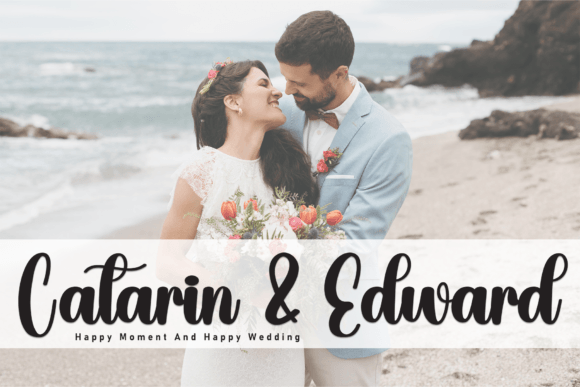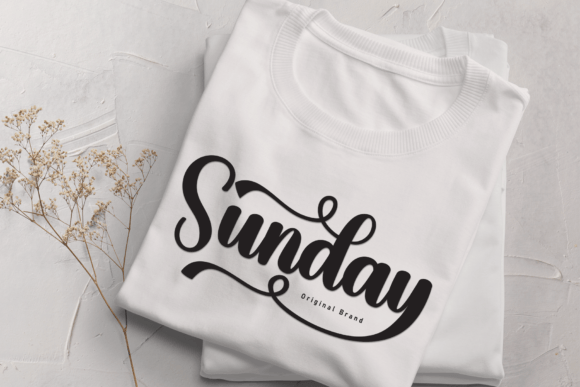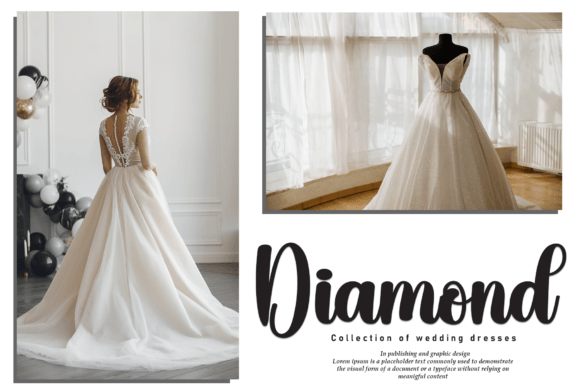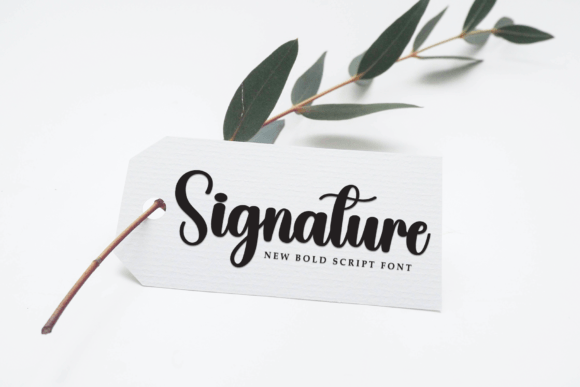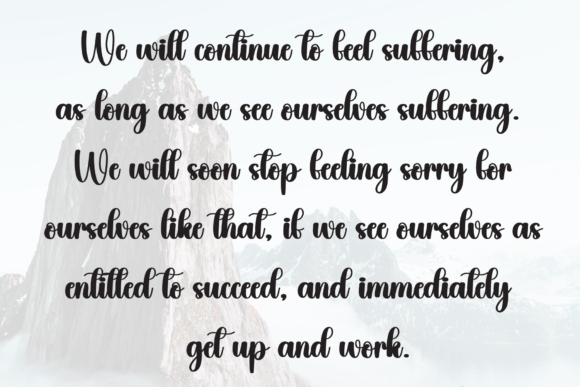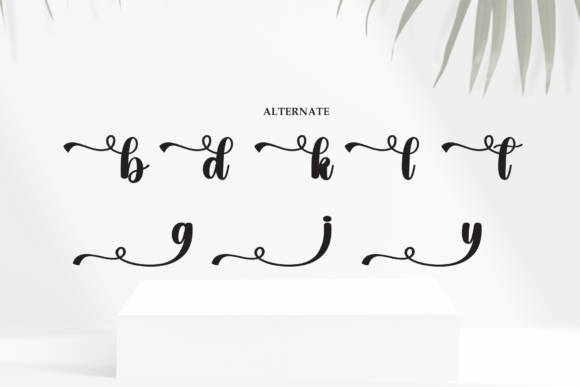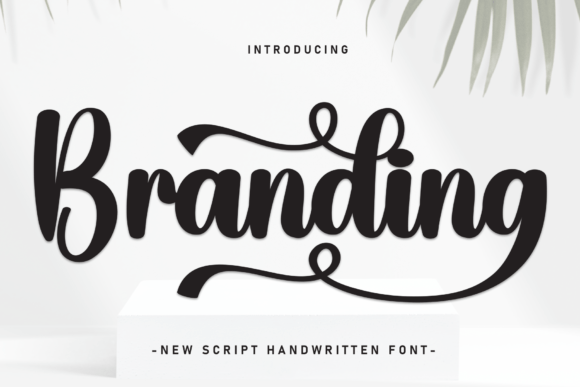
The Power of Branding Font: Elevate Your Design with a Timeless Handwritten Style
When it comes to creating a lasting impression with your design, the font you choose can make all the difference. A well-crafted font can elevate your brand, add personality to your project, and leave a lasting impact on your audience. This is where Branding Font comes in – a lovely and timeless handwritten font that is perfect for creating eye-catching logos, branding, and quotes.
What Makes Branding Font So Special?
Branding Font is more than just a font – it’s an experience. Every letter has a unique and beautiful touch that will make your design come alive. The font’s handwritten style gives it a personal and approachable feel, making it perfect for brands that want to connect with their audience on a more intimate level.
One of the standout features of Branding Font is its versatility. Whether you’re creating a logo, a social media post, or a quote graphic, this font adapts seamlessly to any design. Its elegant and flowing lines make it perfect for headlines, titles, and short phrases, while its clear and readable style ensures that your message gets across effectively.
The Benefits of Using Branding Font
So, why choose Branding Font for your design project? Here are just a few benefits of using this amazing font:
- Unique and Memorable: Branding Font’s distinctive style ensures that your design stands out from the crowd and leaves a lasting impression on your audience.
- Versatile: Whether you’re creating a logo, a social media post, or a quote graphic, Branding Font adapts seamlessly to any design.
- Elegant and Sophisticated: The font’s elegant and flowing lines make it perfect for headlines, titles, and short phrases.
- Easy to Read: Despite its elegant style, Branding Font is clear and readable, ensuring that your message gets across effectively.
How to Use Branding Font in Your Design
Using Branding Font in your design is easy. Here are a few tips to get you started:
- Pair it with Other Fonts: Branding Font pairs well with other fonts, making it easy to create a unique and harmonious design.
- Experiment with Colors: The font’s elegant style looks great in a variety of colors, so don’t be afraid to experiment and find the perfect hue for your design.
- Use it for Headlines and Titles: Branding Font is perfect for headlines and titles, where its elegant and flowing lines can really shine.
Who Can Benefit from Branding Font?
Branding Font is perfect for designers, crafters, and anyone looking to add a personal touch to their design. Here are a few examples of who can benefit from this amazing font:
- Graphic Designers: Branding Font is a great addition to any graphic designer’s toolkit, providing a unique and elegant font for a variety of design projects.
- Crafters: Whether you’re creating handmade cards, gift tags, or other crafts, Branding Font is a great choice for adding a personal touch to your projects.
- Small Business Owners: Branding Font is perfect for small business owners looking to create a unique and memorable brand identity.
In conclusion, Branding Font is a timeless and elegant handwritten font that is perfect for creating eye-catching logos, branding, and quotes. Its unique and beautiful touch makes it a standout choice for designers and crafters looking to add a personal touch to their design. With its versatility, elegance, and readability, Branding Font is a great addition to any design project.